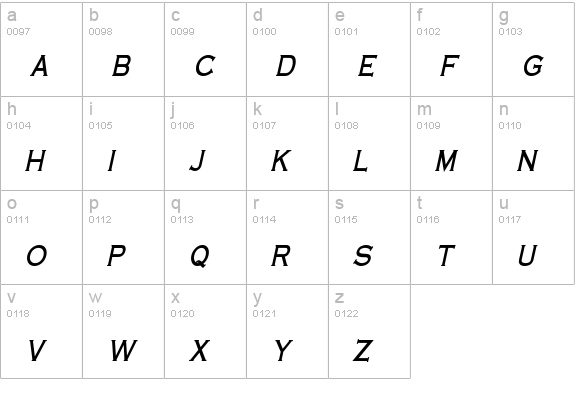
Cobalt Thin Bold Italic Font Details
Cobalt Thin Bold Italic is a delicate, low-contrast, italic variant in the Cobalt typeface family \xE2\x80\x94 well suited to fashion editorial, minimal branding, and high-contrast display.
Introducing Cobalt Thin Bold Italic, a sleek and modern typeface that exudes sophistication and elegance. This unique font features a perfect balance of thin strokes with bold accents, creating a striking visual impact. The italicized style adds a touch of flair and creativity, making it perfect for a wide range of design projects. What sets Cobalt Thin Bold Italic apart is its versatility and readability, making it ideal for both headlines and body text. Whether you're designing a website, creating a logo, or working on a branding project, this font will elevate your design to the next level. Best of all, Cobalt Thin Bold Italic is available for free download at FontsMarket.com. Don't miss out on the opportunity to add this stunning font to your collection and enhance your design projects with its unique style and elegance. Download Cobalt Thin Bold Italic today and let your creativity shine!